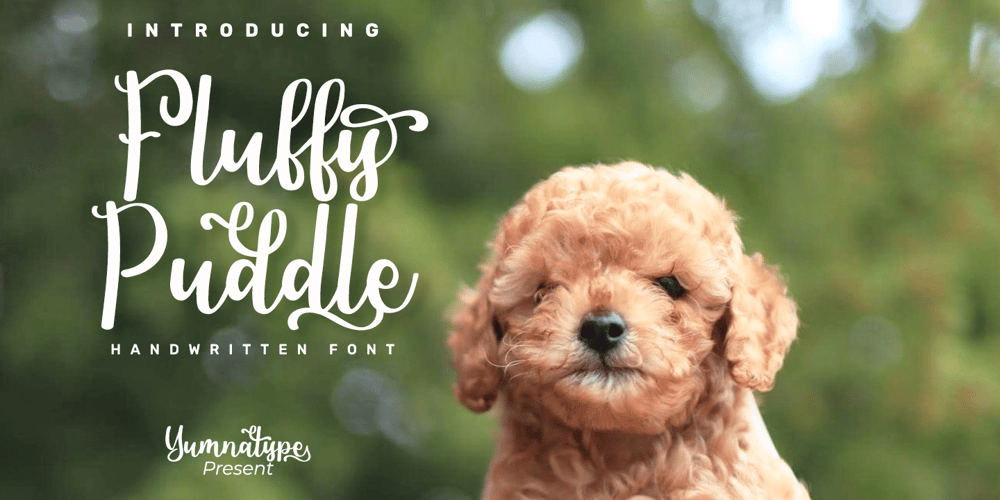
Fluffy Puddle Font Family was designed by Donis Miftahudin and published by Yumna Type. Fluffy Puddle contains 1 styles and family package options. Fluffy Puddle is a beautiful handwritten font. Made for any professional project branding. It is the best for logos, branding and quotes. Every letter has a unique and beautiful touch.Features: Standard Ligatures Stylistic Set PUA Encoded Multilingual Support Numerals and Punctuation by Yumnatype